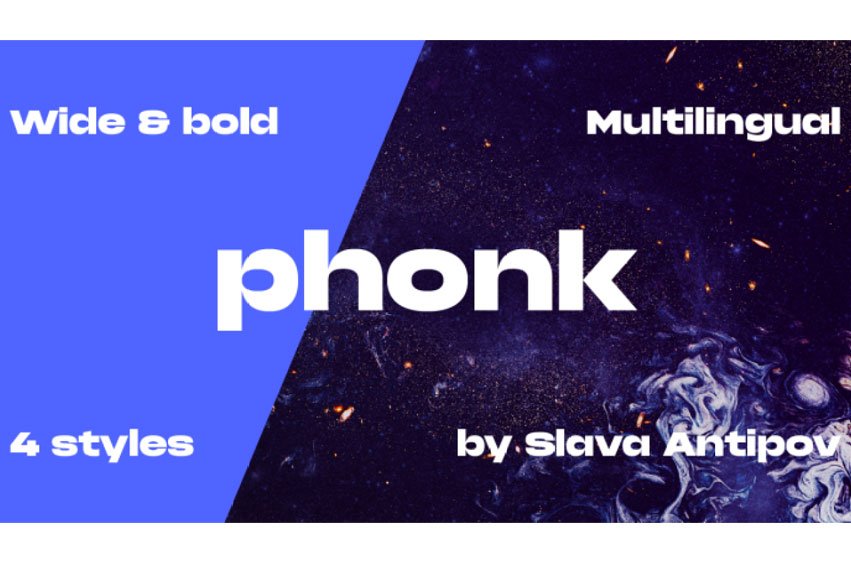
Phonk Font
Phonk Font is an eye-catching font suitable for headlines as its bold font stands out.
Additionally, it works great as logo font and in other typographical experiments; Phonk supports two languages – Latin and Cyrillic.